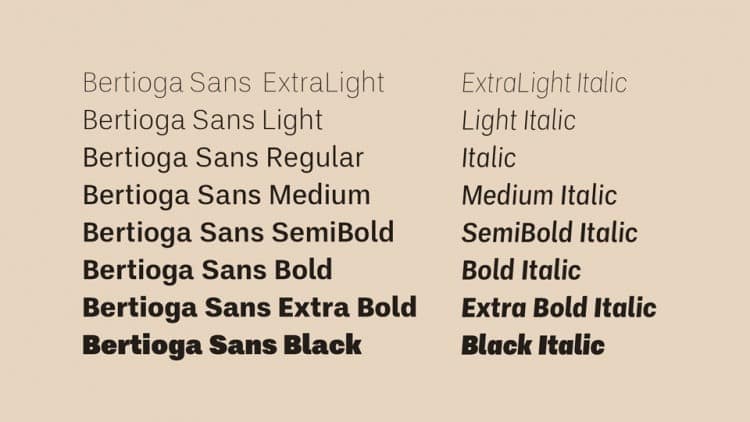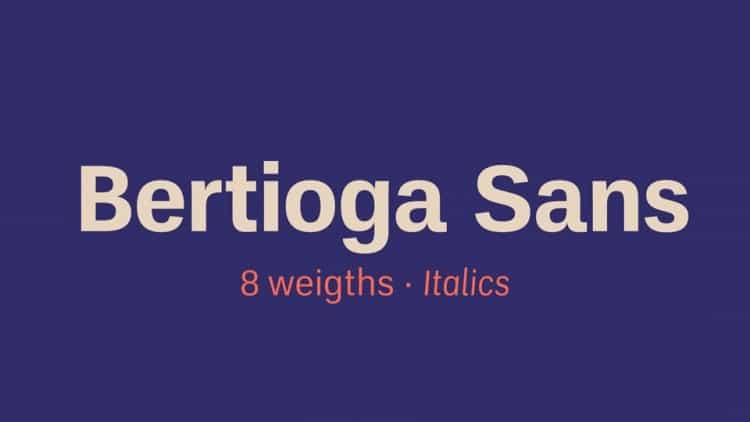
Bertioga Sans Serif Font Family
Bertioga Sans Serif Font is a straight and generous sans serif that provides consistent stability. This project was born in 2020, after original UnB Pro fonts received 10+ years with no active development, so this font was created as a continuation of that font’s development.
It includes many fixes and remastering (so this font includes 8 weights with matching italics).
Changes to Bertioga Sans (2020 – 2021): Re-done Bold weight (so it matches Bold Italic in typographic color); Expanded from 4 to 8 weights, and added italic styles for all weights; many other fixes.